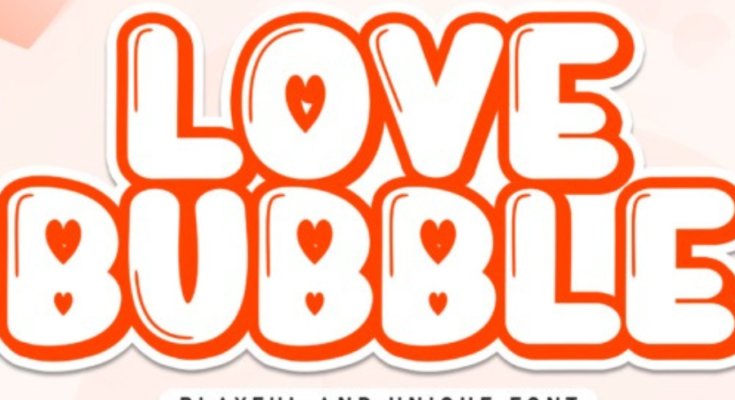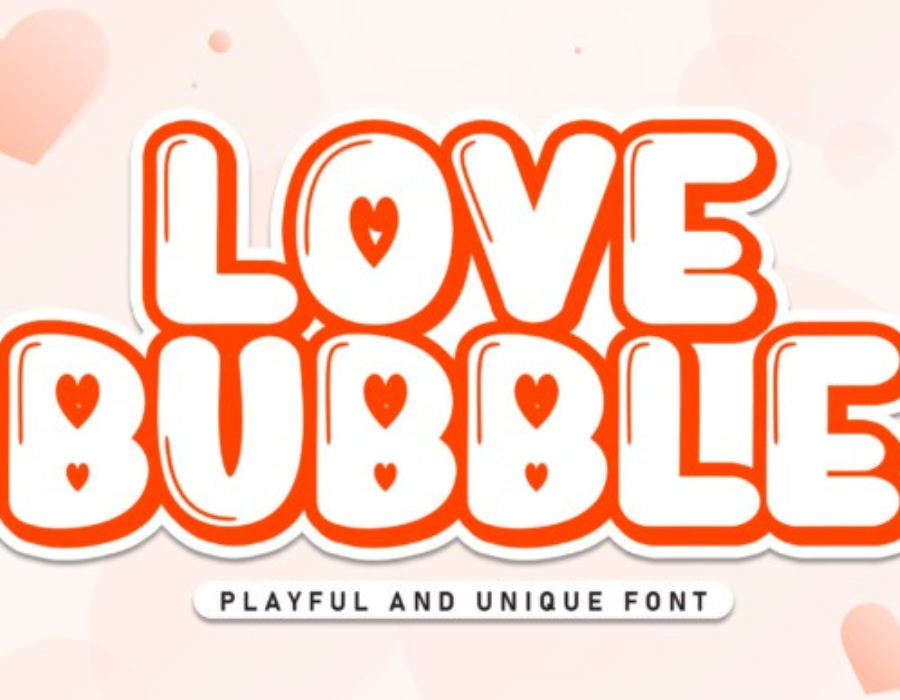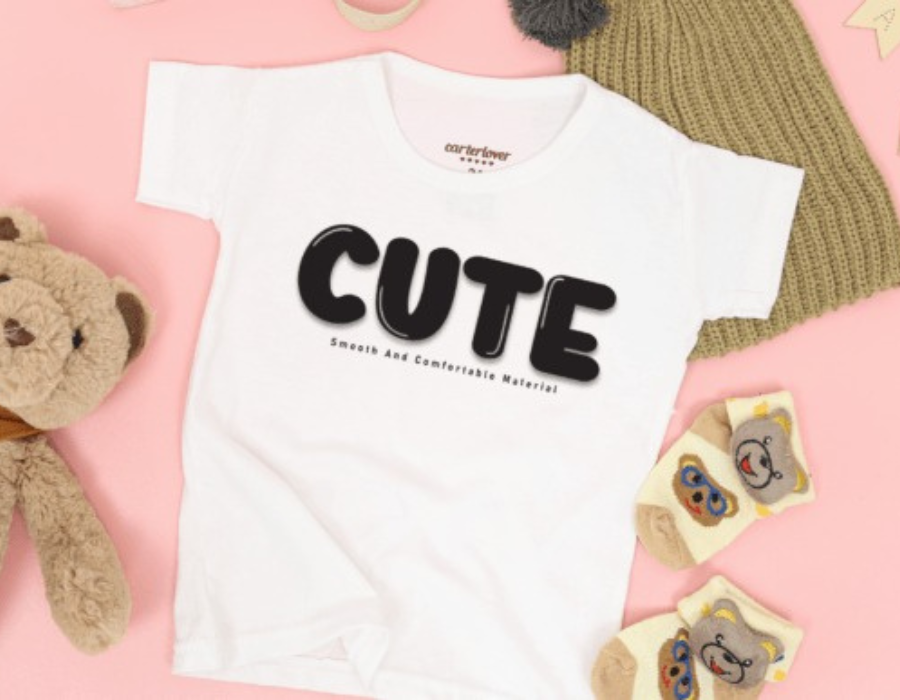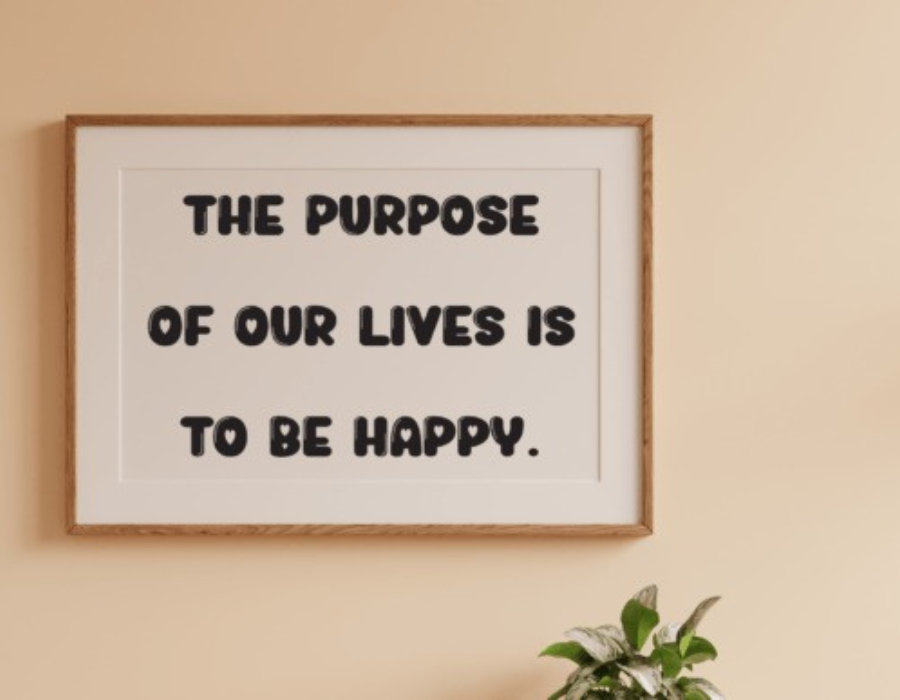
Love Bubble Font is a casual display font that captures a relaxed and friendly vibe with its natural, flowing strokes. Ideal for personal projects, social media, and invitations, it brings an effortless, charming touch to any design. The font’s easygoing style adds warmth and authenticity.